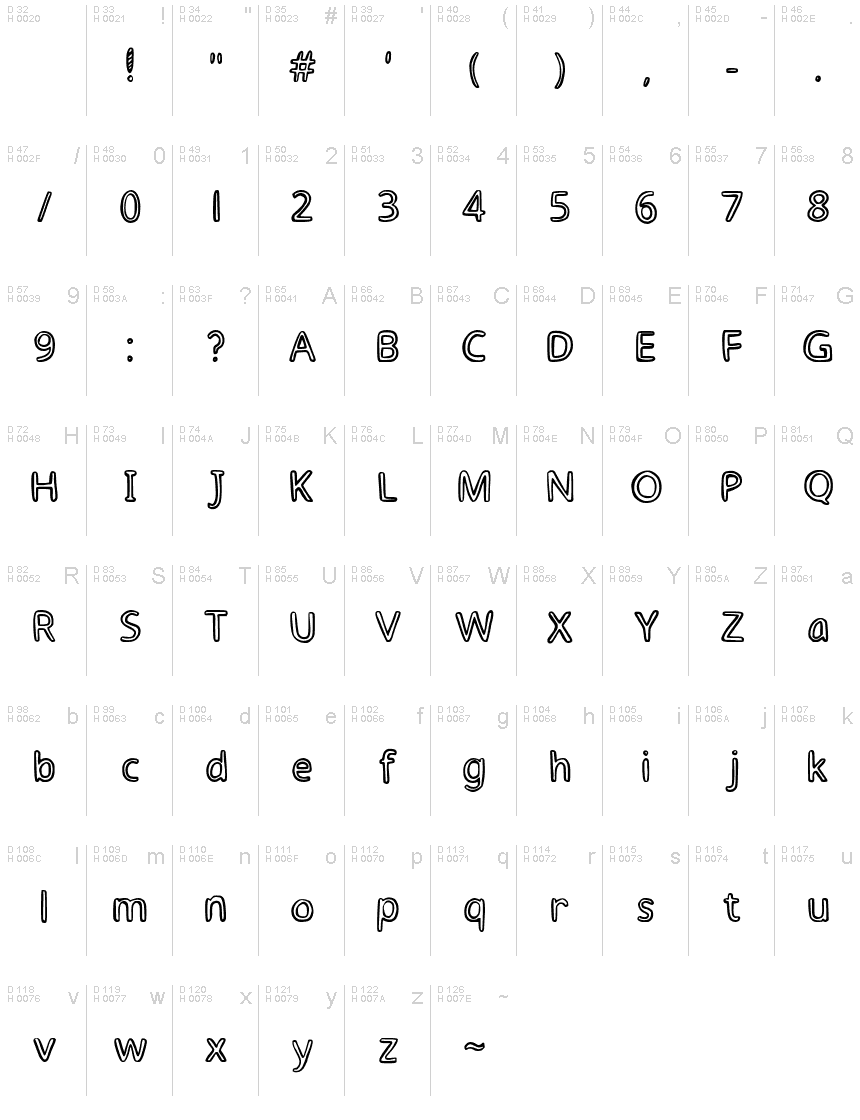
Churro Regular
Introducing Churro, an outlined cartoon font designed by Charlotte Lee. Its light weight makes it perfect for creating eye-catching logos, titles, headlines and posters. Use Churro to add a playful touch to your blog posts, social media advertisements and videos.